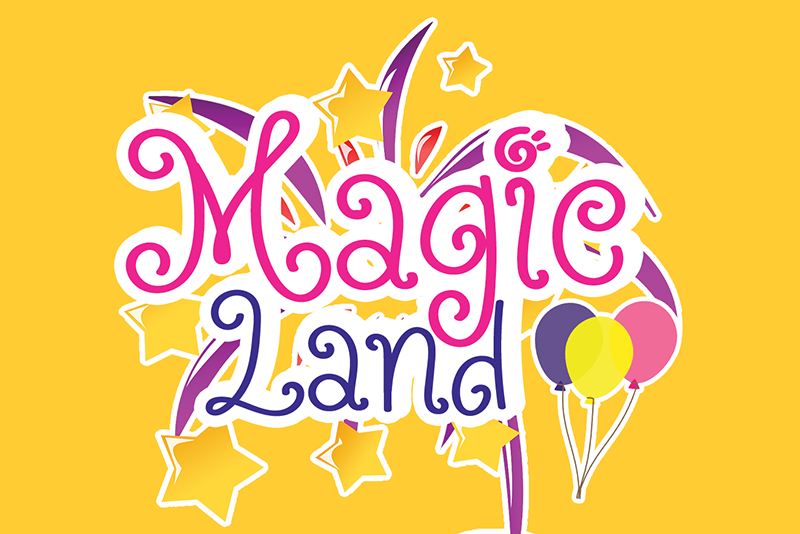
Preview and download Magic Land Font. Created by Luluk Surotul in Fancy Curly styles with Free for personal use license.
Magic Land is a whimsical and quirky handwritten font. Add this adaptable and informal handwritten font to each of your creative ideas and notice how they come to life. Attention : Magic Land handwriting Font is prohibited to use this font for commercial purposes or for profit without the permission of the author/admin, without being known to use this font without permission, will be subject to sanctions 5x the specified price. This font is used only for demos (Demo license) If you want to use this font for commercial use please contact email: elllulukstudio123@gmail.com or click the link below: https://www.creativefabrica.com/product/magic-land/ref/761303/ If you want to see more other fonts, please click: https://www.creativefabrica.com/designer/el_hotcig/ref/761303/ Any donations are very appreciated. Paypal account for donation: https://www.paypal.com/paypalme/luluk783 thanks. |